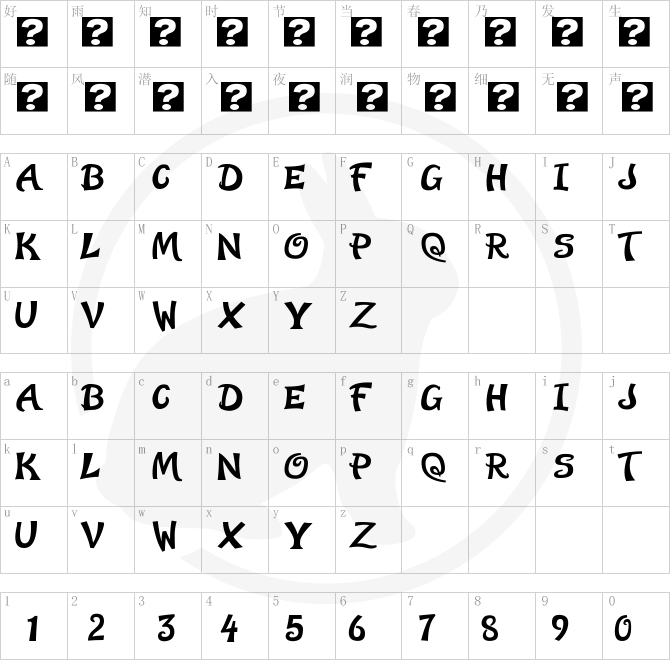
- Font Name:Early Halloween Adventures
Early-Halloween-Adventures.ttf is a very beautiful artistic font, Early-Halloween-Adventures.ttf is widely used in the design and printing of various books and pictures,Early-Halloween-Adventures.ttf has a strong visual impact,Early-Halloween-Adventures.ttf is a commonly used font in newspapers, magazines and books, and is used in posters, e-commerce Poster design, store design, logo design, font design and other fields.Early-Halloween-Adventures.